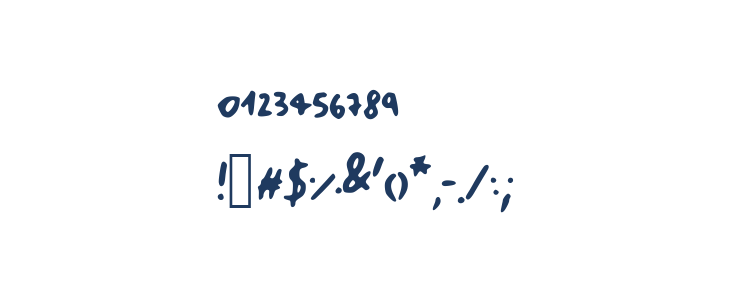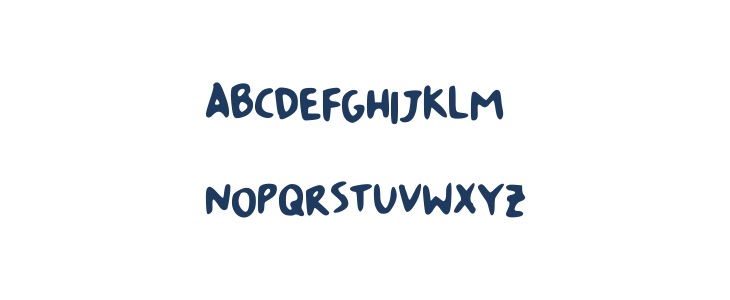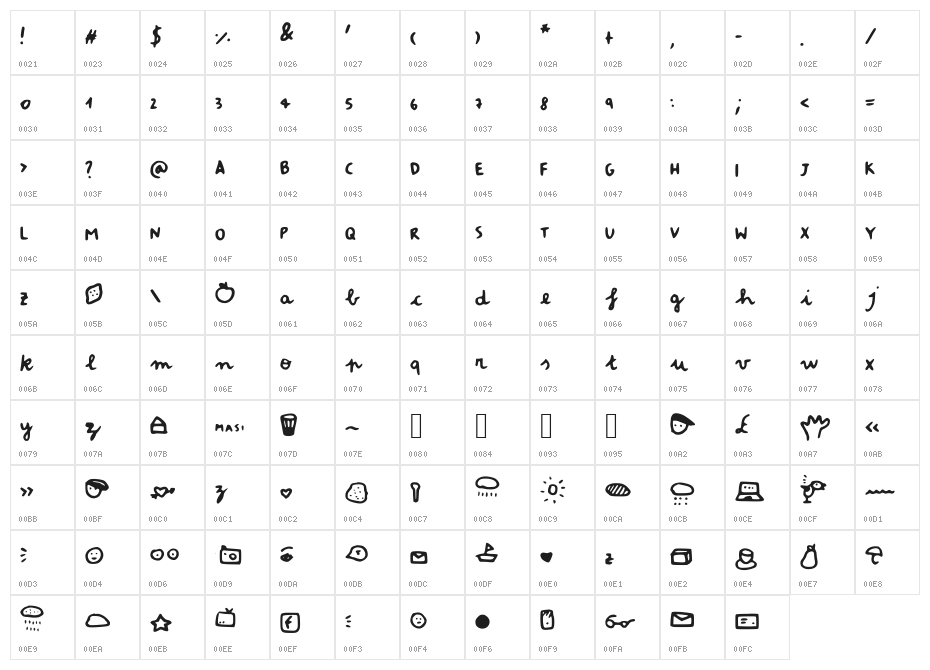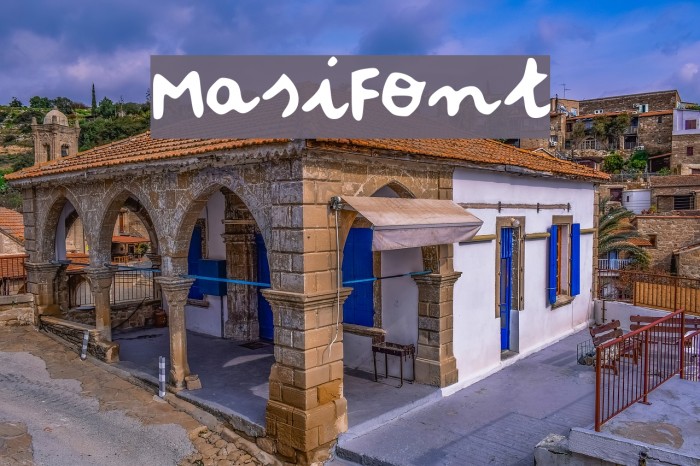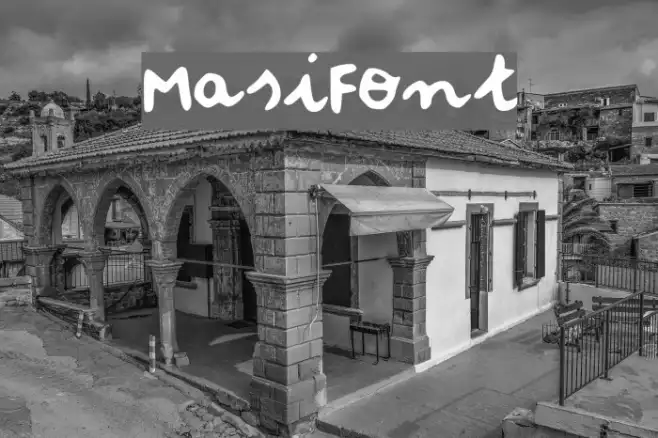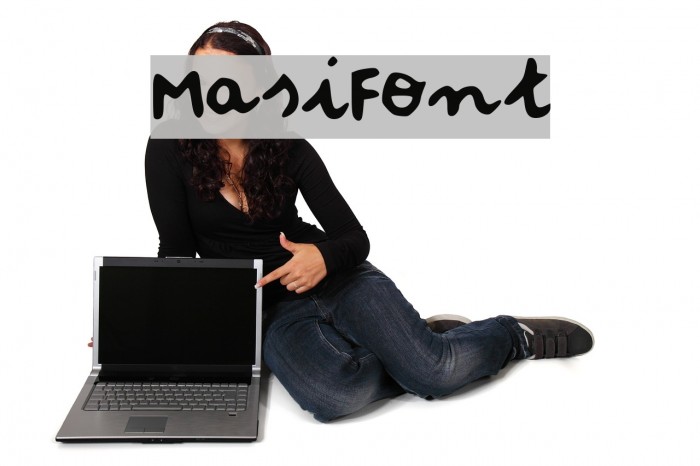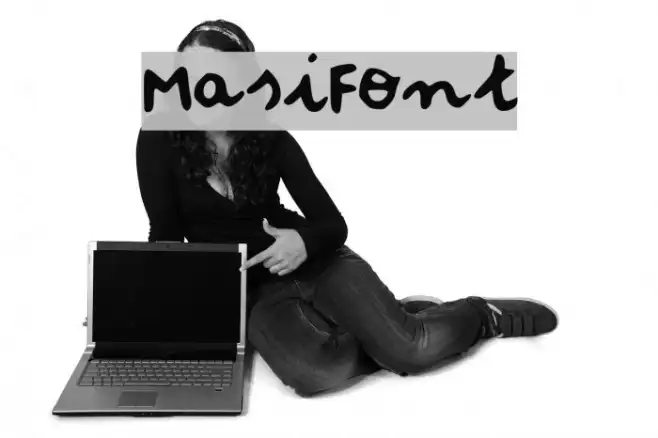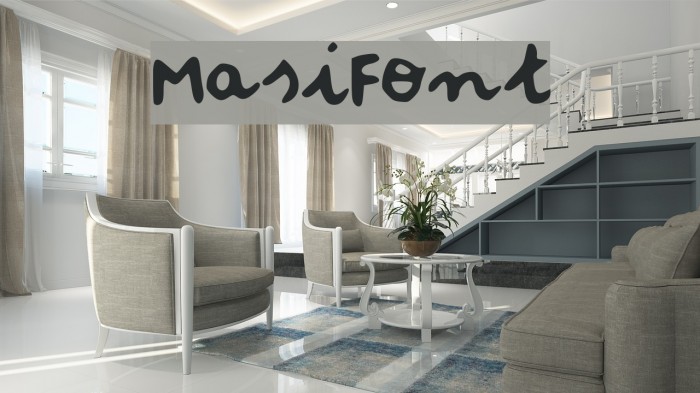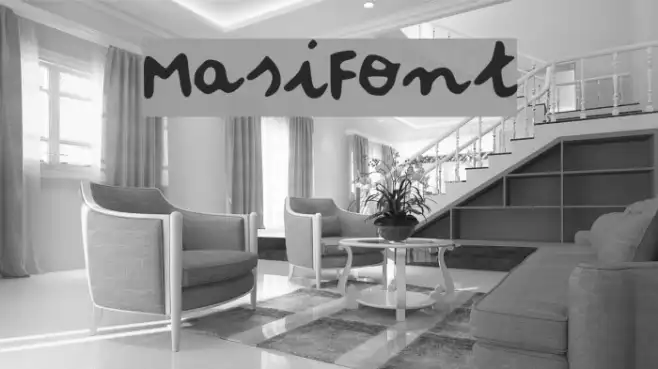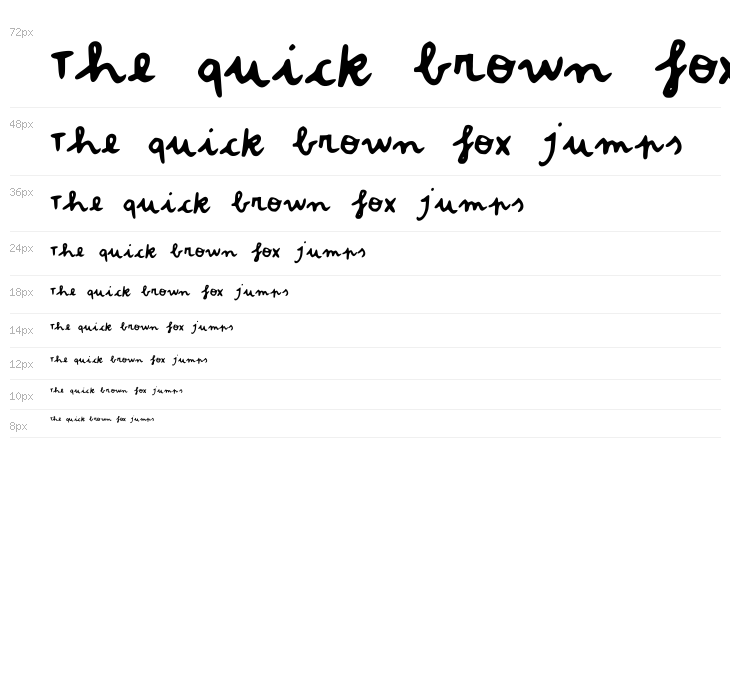
MasiFont Font
MasiFont Description
This font features a playful and casual handwritten style, characterized by its smooth, flowing curves and slightly irregular strokes. The uppercase letters maintain a consistent height, while the lowercase letters exhibit a charming variance in size, adding to the informal aesthetic. The numerals are bold and clear, ensuring readability. Special characters are creatively designed, complementing the overall style. This font exudes a friendly and approachable vibe, making it suitable for projects that require a personal touch. Its unique character shapes and fluidity make it stand out, offering a distinct personality to any design.
| Proposed Projects | Ideal for greeting cards, invitations, personal branding, and creative projects. |